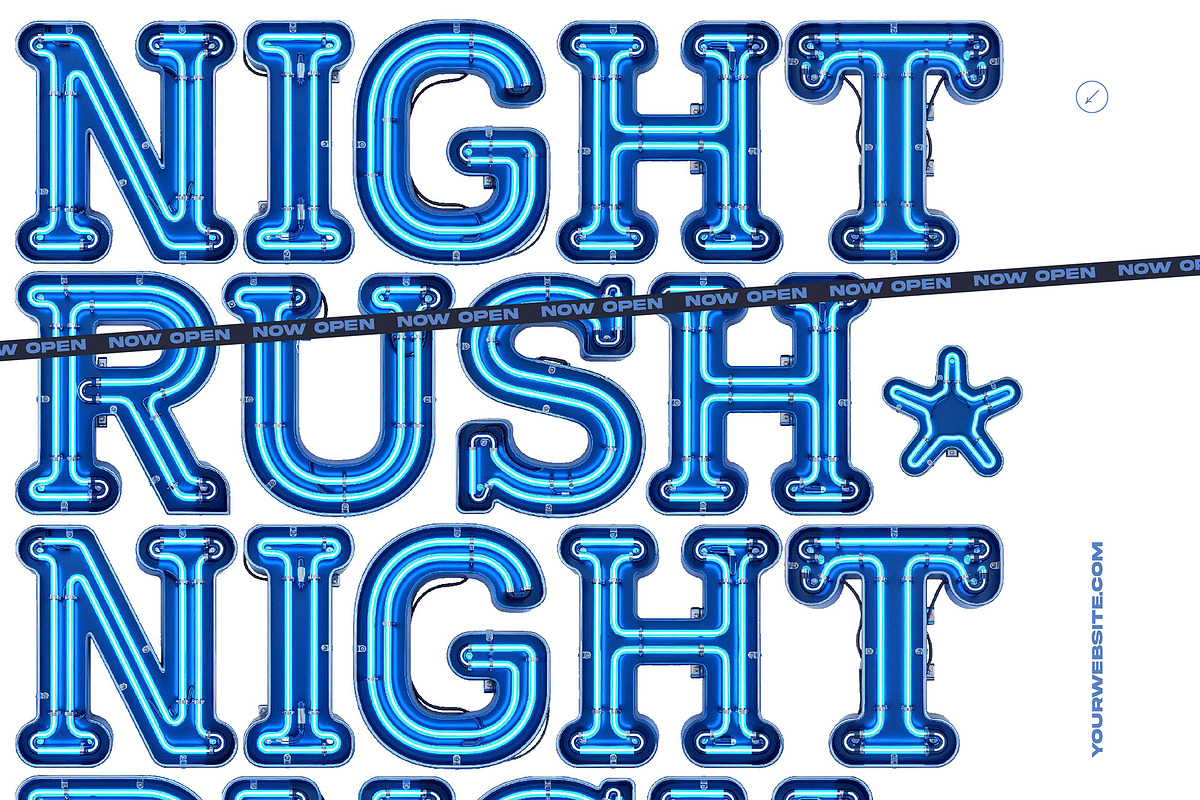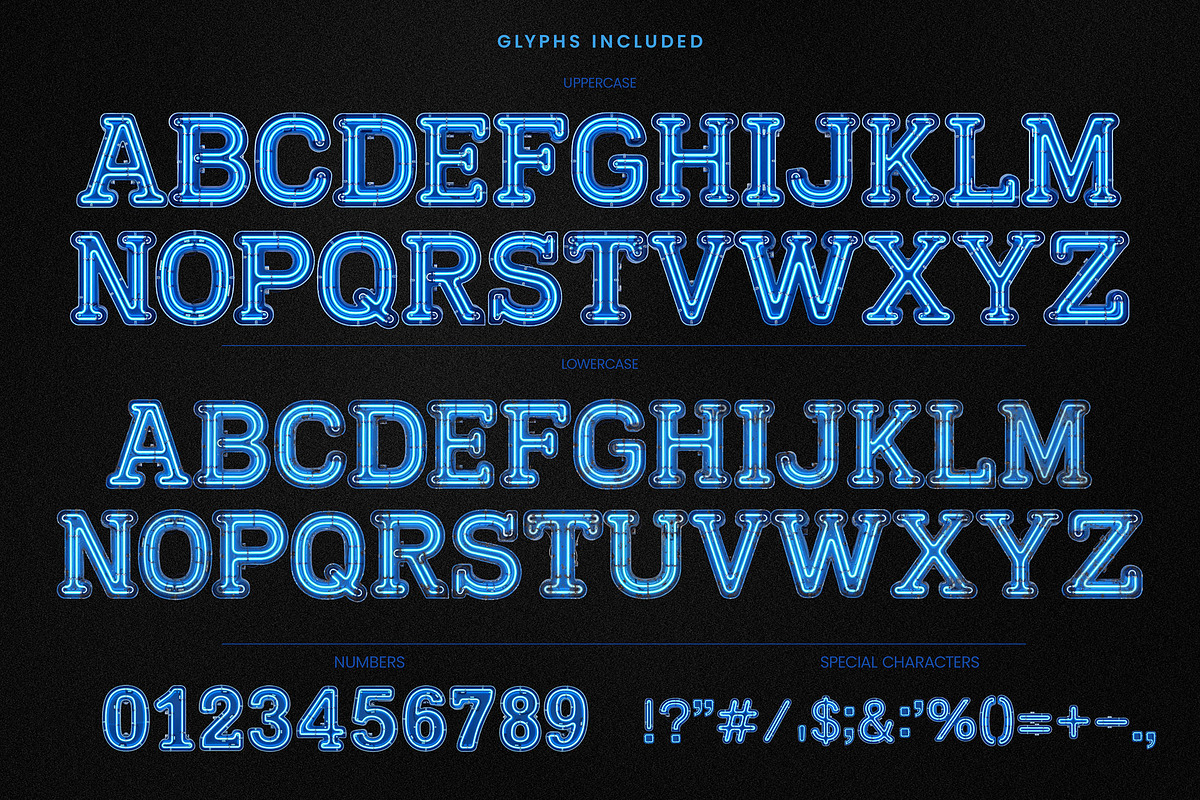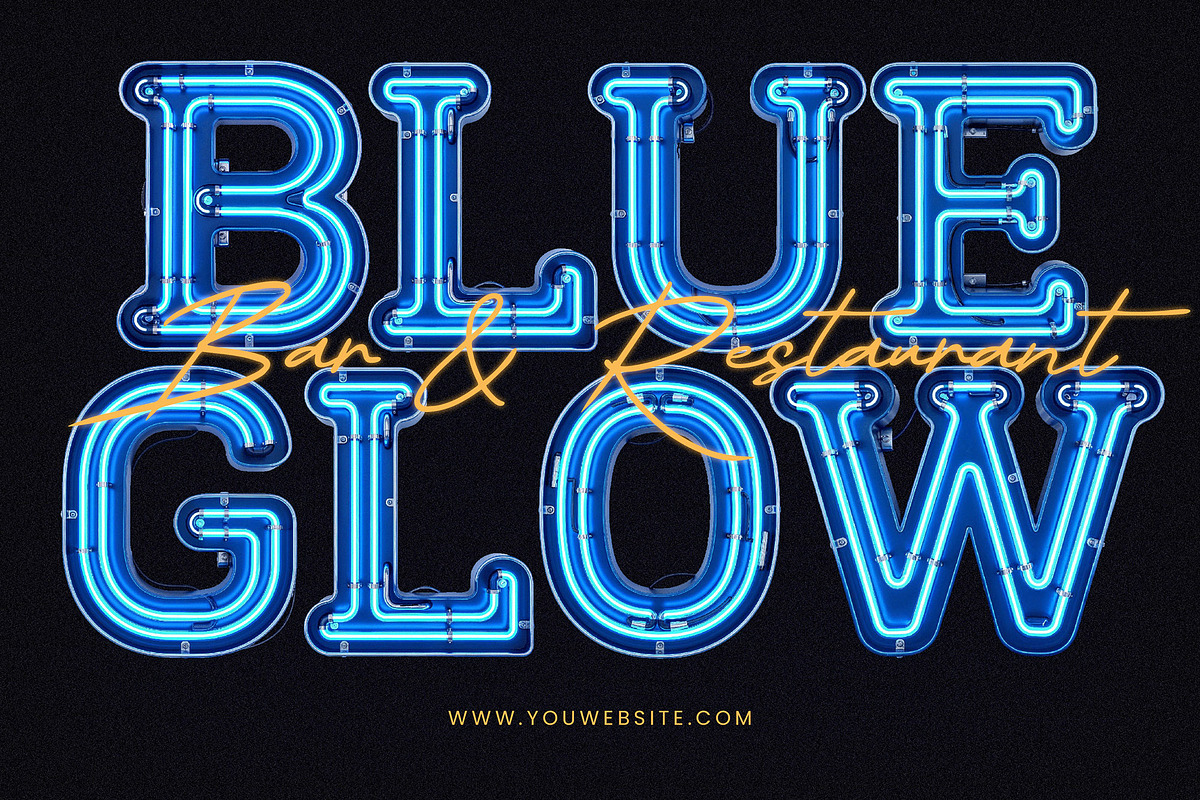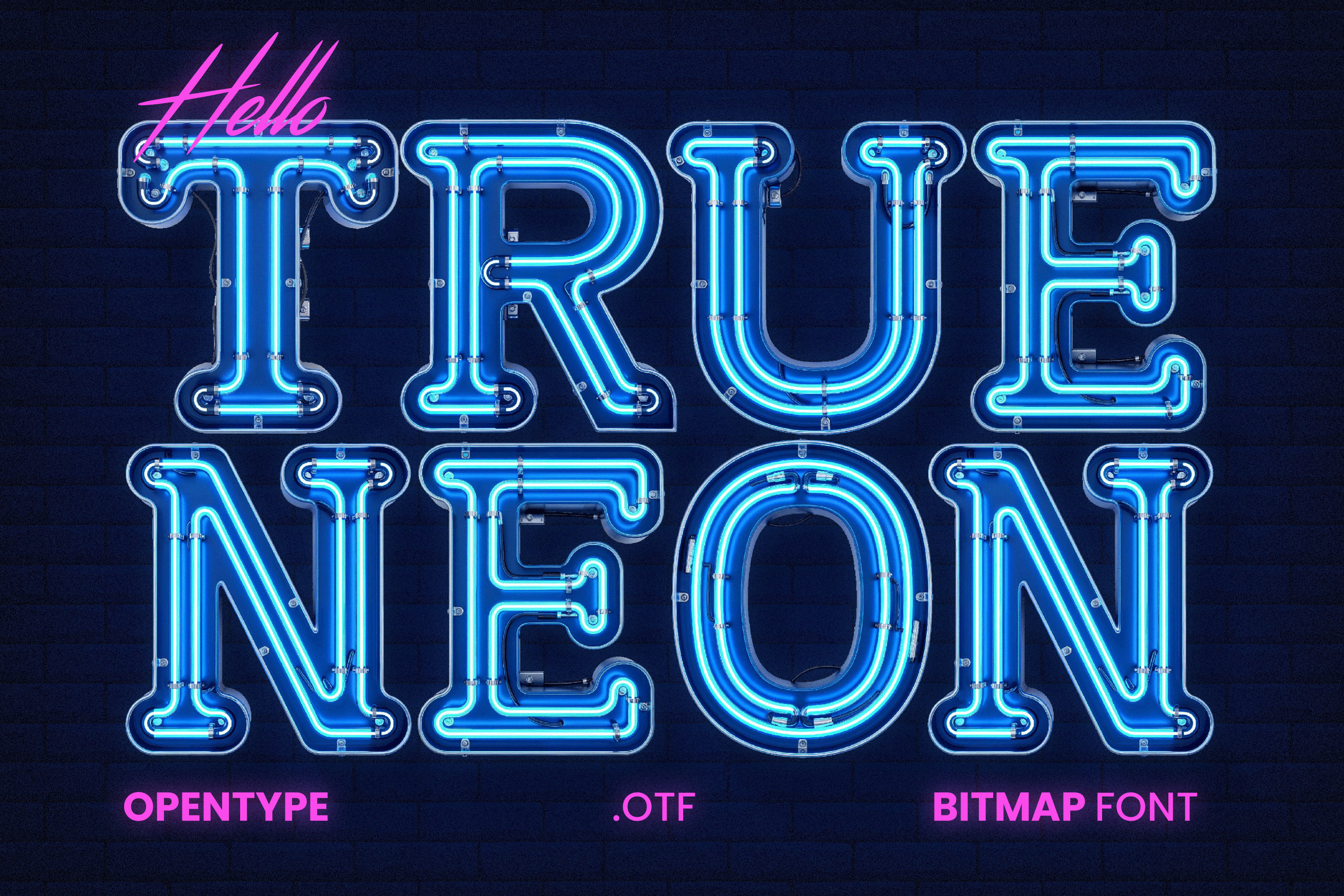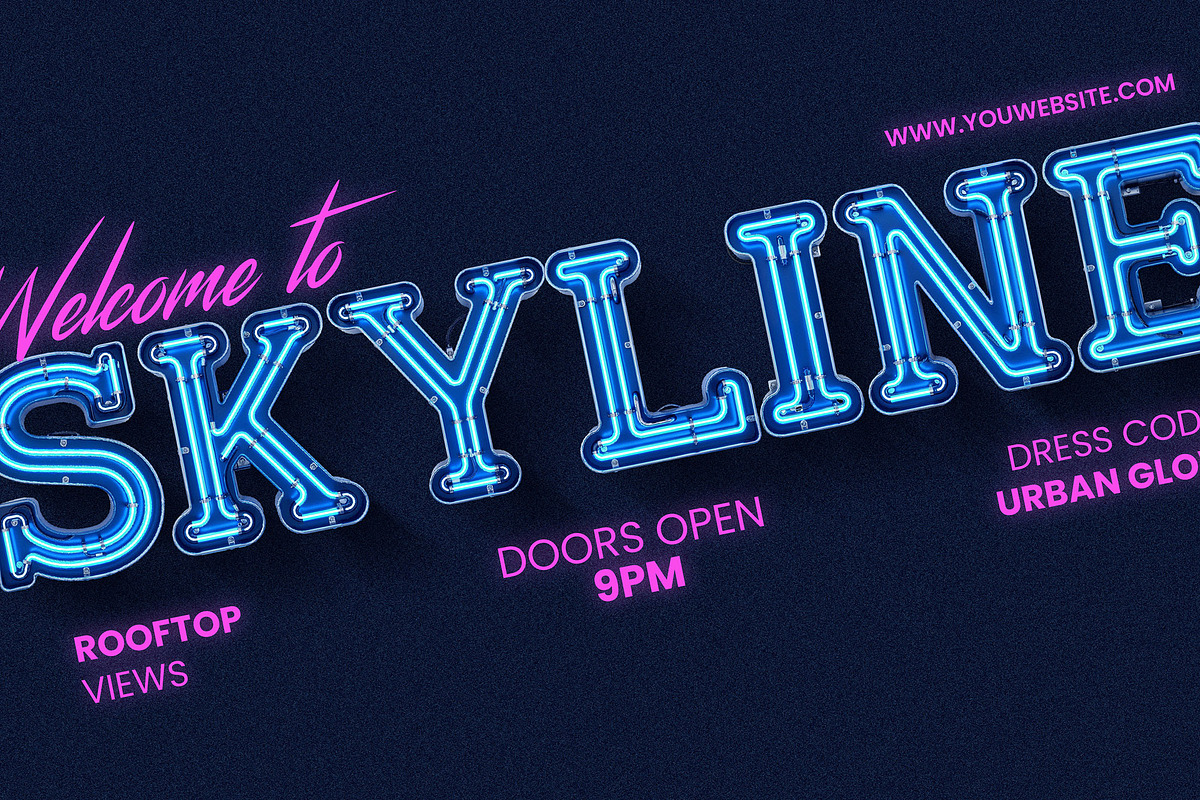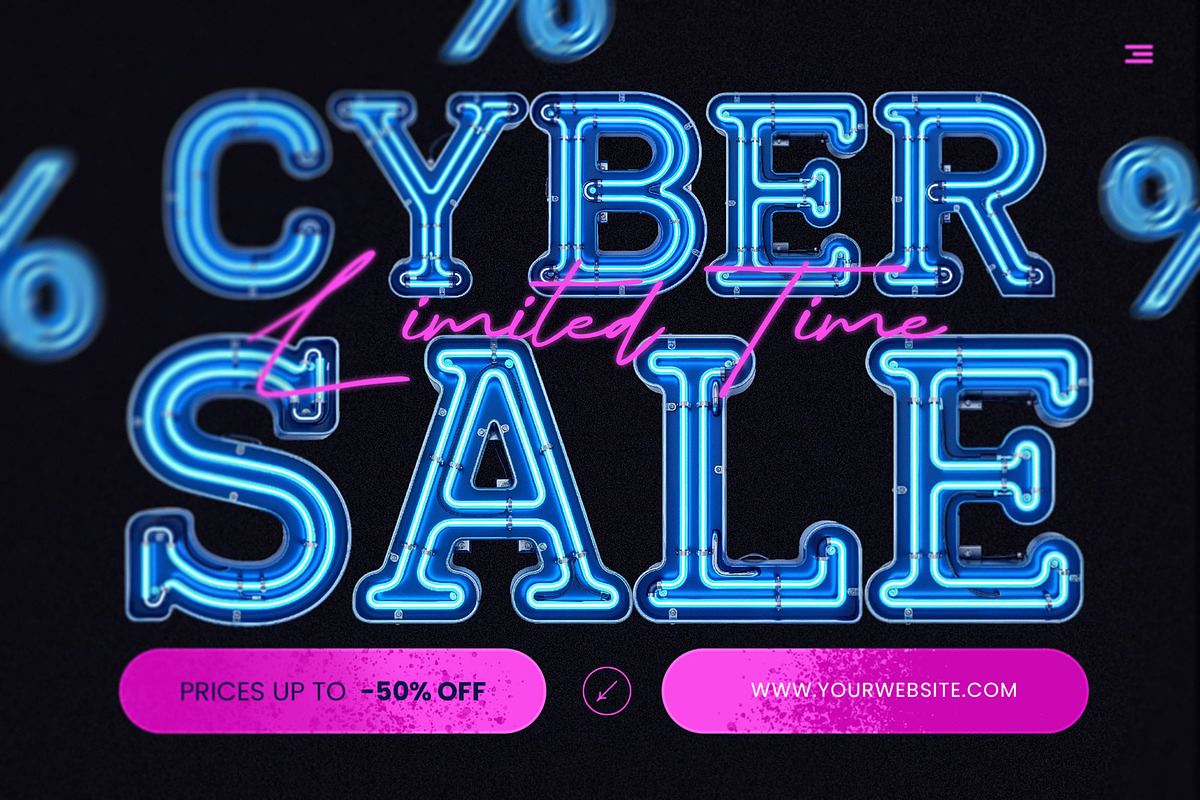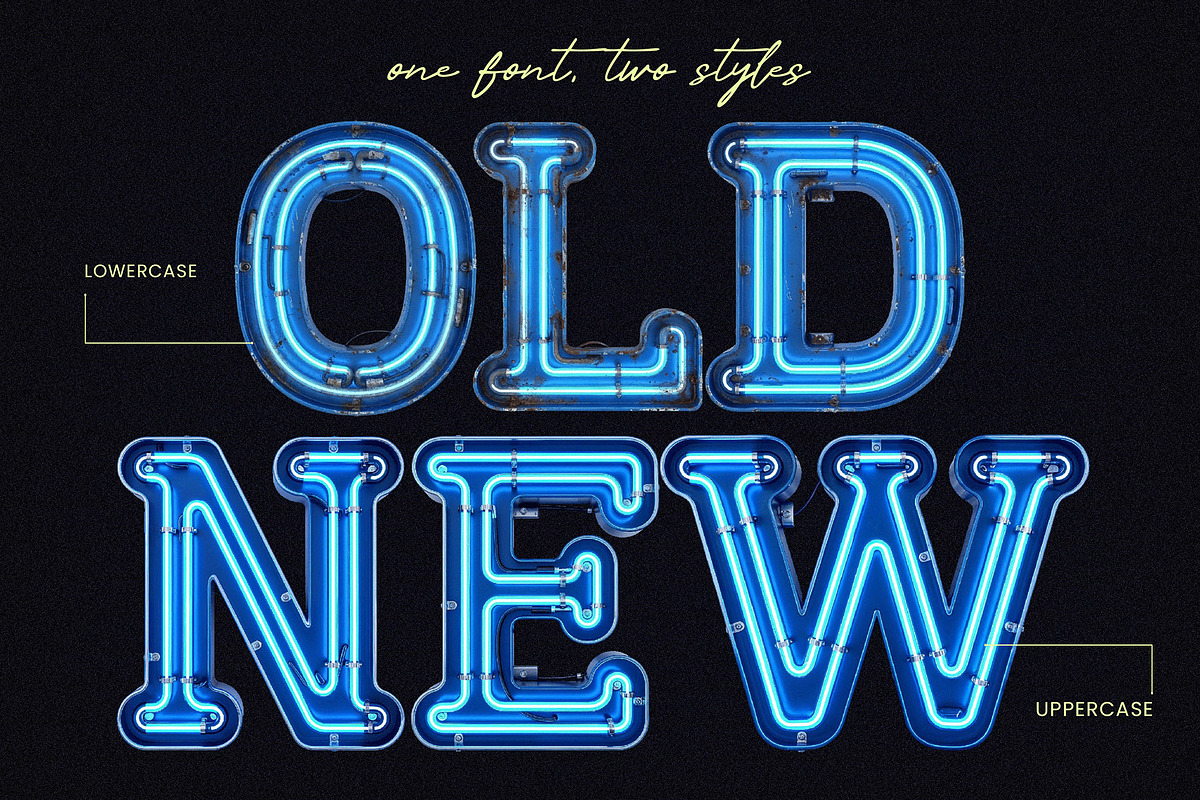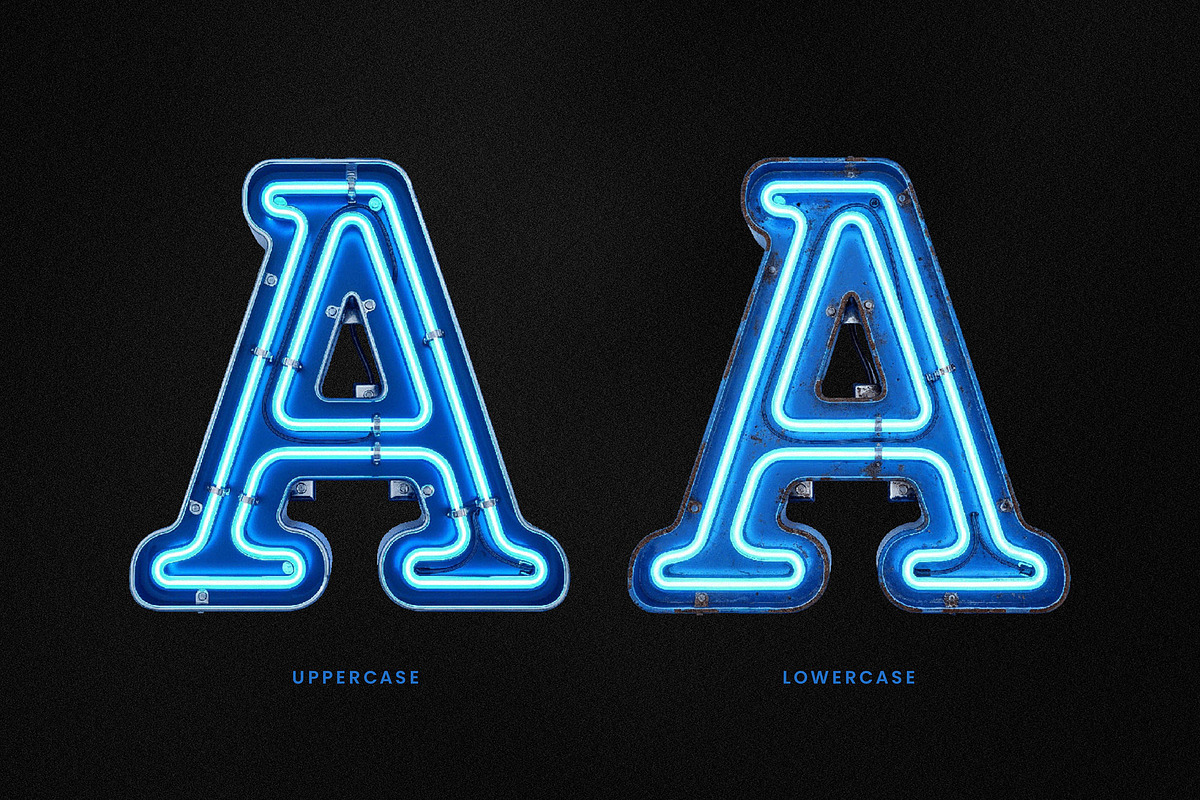
True Neon - Blue Futuristic Font
Bring the glow of real neon signage to your designs with True Neon, a bold and electrifying display font inspired by classic neon lights and modern nightlife aesthetics. Each letter is crafted to look like authentic neon tubing, complete with luminous edges and a vibrant glow that instantly grabs attention. Perfect for statement designs, this font adds a retro‑futuristic vibe while still feeling clean, bold, and modern.
- Posters & flyers
- Nightclub, bar, and restaurant signage
- Music artwork (album covers, single covers, playlists)
- Event promotions & party invitations
- YouTube thumbnails & channel branding
- Retro, synthwave, cyberpunk, or nightlife themes